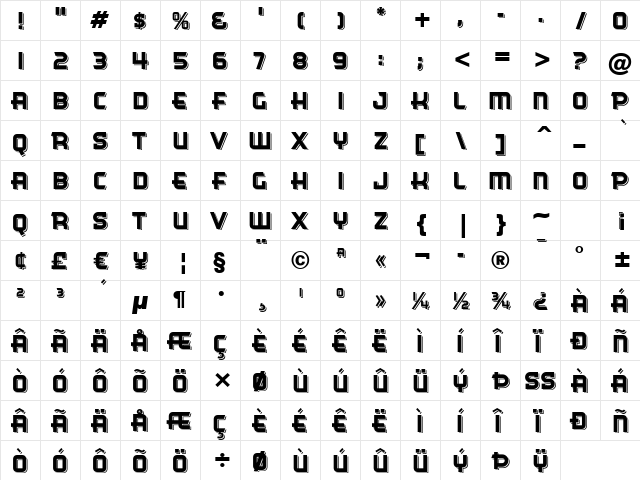
Cinema Gothic BTN Shadow Regular
Design Context for Cinema Gothic BTN Shadow Typeface
Cinema Gothic BTN Shadow is built around its visual character rather than neutral utility — its distinctive forms are designed to make an impression at display sizes.
Font Pairing: Pair with a clean neutral sans-serif for body copy to let Cinema Gothic BTN Shadow's character lead without overwhelming the composition.
Pro Tip: Treat Cinema Gothic BTN Shadow as the centrepiece of your typographic hierarchy. One strong heading set in a decorative face can carry an entire layout.